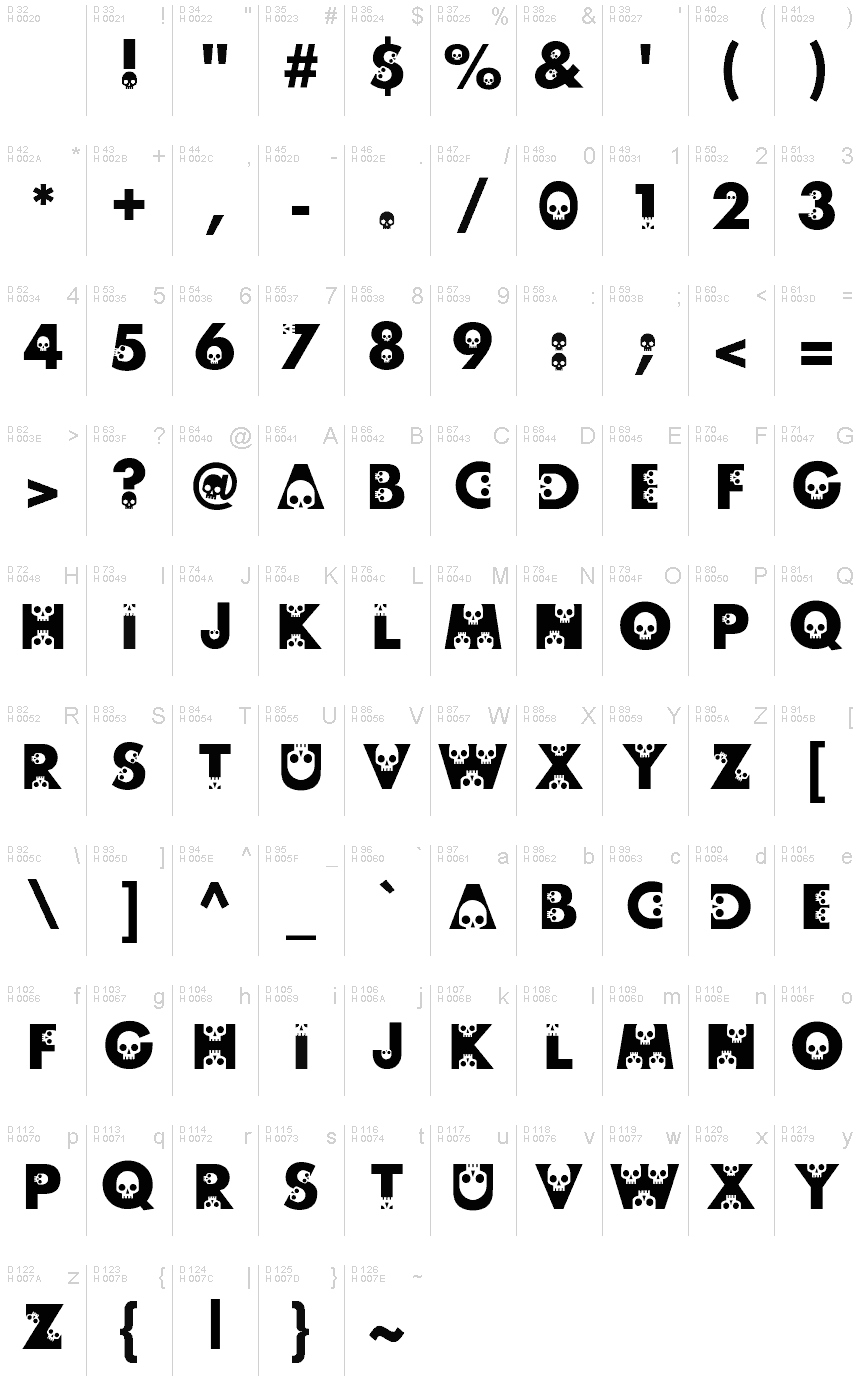
skullphabet
Skullphabet emerges as a strikingly unique display font that immediately captures attention with its decorative and extra-bold style. Designed by Skull-A-Day, this font weaves together the macabre charm of skulls with the robustness of heavy typography—making it a go-to choice for projects that aim to leave a lasting impression.
Each letter in the Skullphabet is crafted with an eye for detail, integrating skull motifs seamlessly into the characters to offer an aesthetic that is both playful and eerie. This fusion creates a visual experience that's not just a typeface but an artistic statement, ideal for themed events, bold branding, or edgy editorial design.
Given its distinctive style and appearance, Skullphabet lends itself superbly to creative endeavors looking for an element of surprise or to make a strong statement. Whether deployed in graphic novels, concert posters, Halloween promotions or avant-garde fashion campaigns, this font stands out as much more than mere lettering—it's a celebration of individuality and unapologetic flair.
Each letter in the Skullphabet is crafted with an eye for detail, integrating skull motifs seamlessly into the characters to offer an aesthetic that is both playful and eerie. This fusion creates a visual experience that's not just a typeface but an artistic statement, ideal for themed events, bold branding, or edgy editorial design.
Given its distinctive style and appearance, Skullphabet lends itself superbly to creative endeavors looking for an element of surprise or to make a strong statement. Whether deployed in graphic novels, concert posters, Halloween promotions or avant-garde fashion campaigns, this font stands out as much more than mere lettering—it's a celebration of individuality and unapologetic flair.